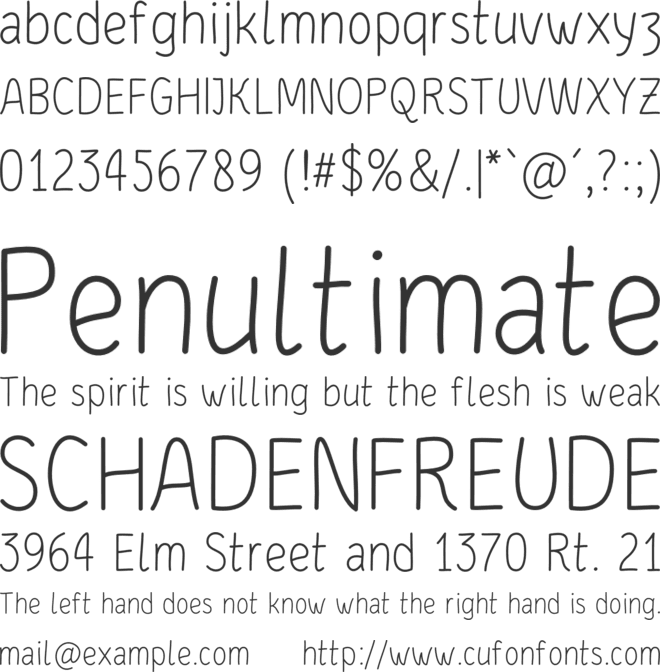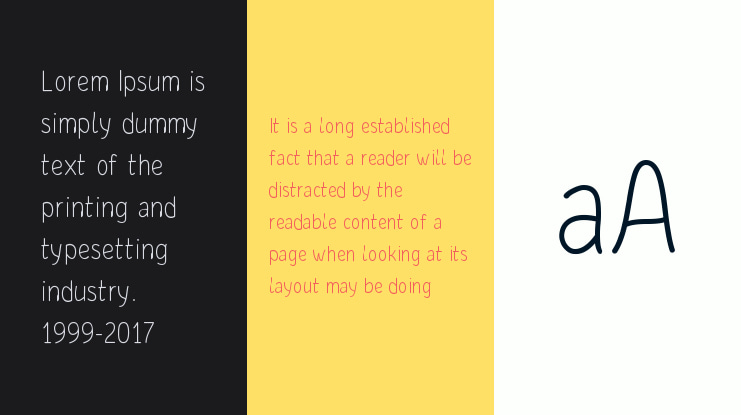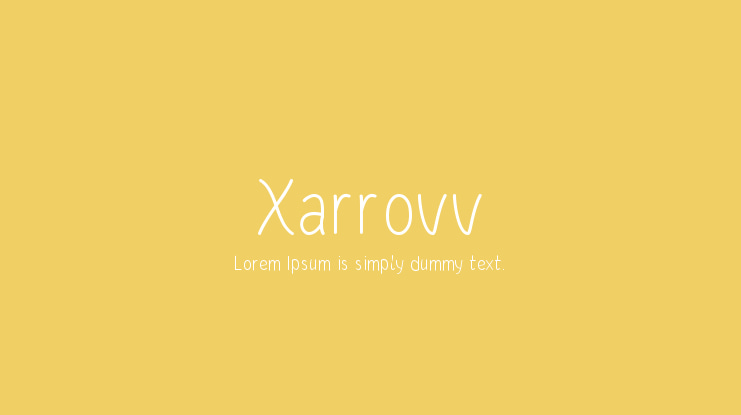
Xarrovv Font
Xarrovv has extended Latin, Creek, Cyrillic, Thai, Georgian, Armenian alphabets, and more than 2000 CJK characters, all composed diacritics for Vietnamese and all European languages. It supports all the languages of Russian Federation and former USSR. Lots of currency signs, fractals, math symbols etc.
Stylistically it looks like a handwriting of a meticulous person.
Xarrovv was designed by Dmitri Zdorov in 2018 and updated often.